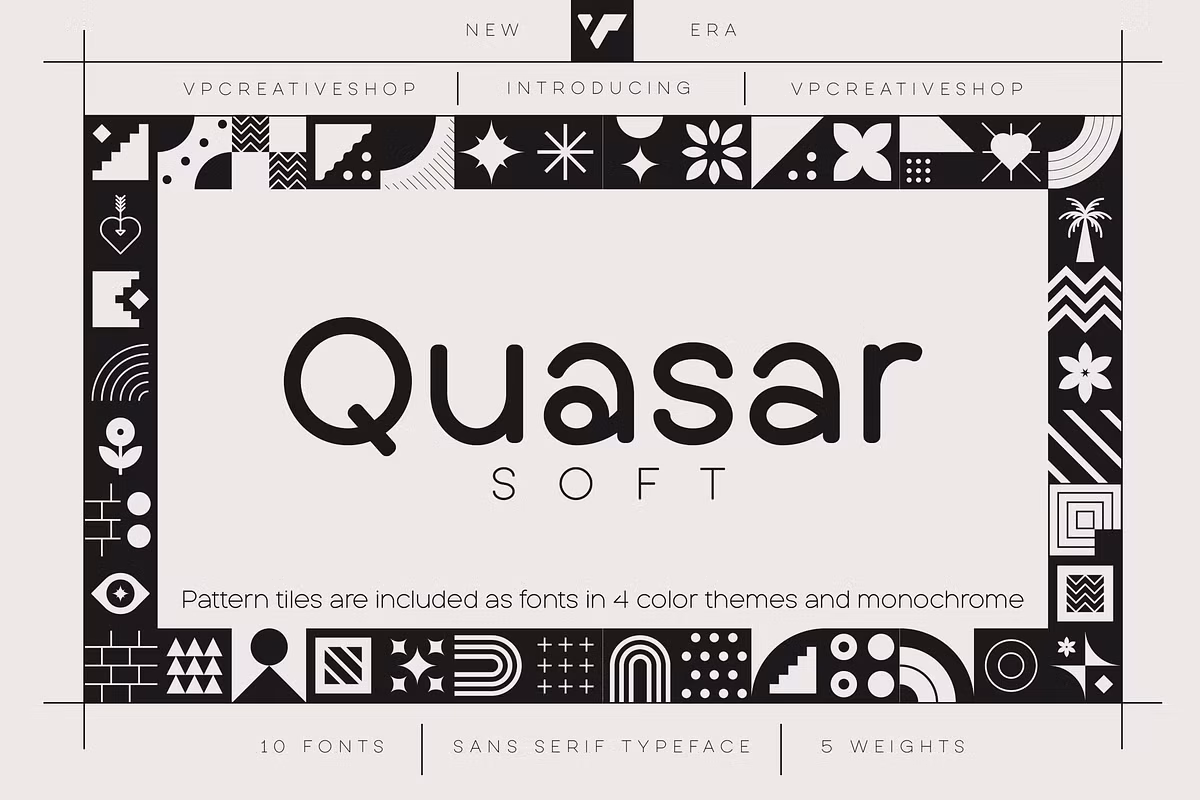
Quasar Soft Typeface – 15 Fonts Free Download is a modern, rounded sans-serif font family that blends futuristic style with friendly curves. Featuring 15 unique styles—ranging from thin to bold with matching italics—this versatile set is perfect for UI/UX design, branding, tech startups, product packaging, and contemporary editorial layouts.
The smooth terminals and geometric shapes of Quasar Soft Typeface – 15 Fonts Free Download give it a clean, approachable tone while still feeling sleek and innovative. Whether you're creating digital interfaces or polished print designs, this typeface family offers the flexibility and consistency you need across all media.